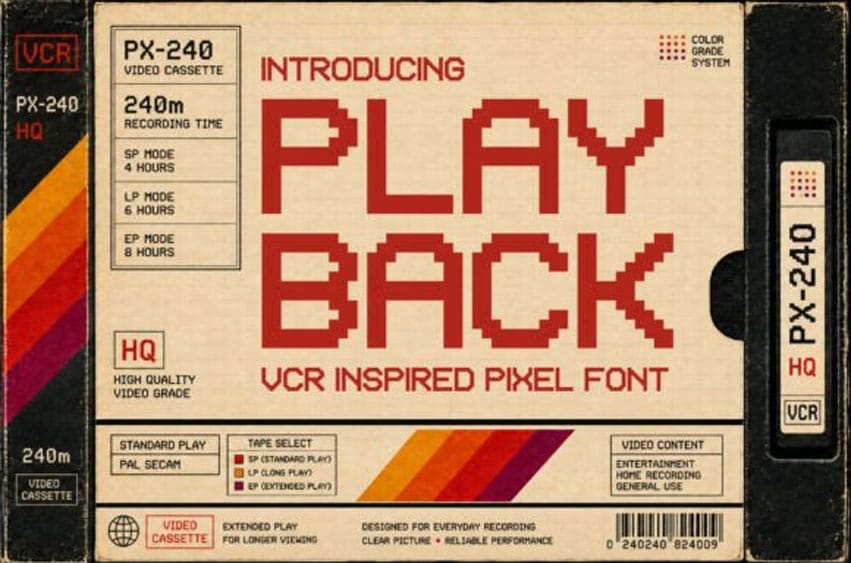
Playback Font Rewind to the glory days of analog tape and VHS video packaging with PLAYBACK! Inspired by vintage VCR cassette sleeves and retro screen displays, this pixelated display font captures the crisp, blocky geometry of classic 80s and 90s technology. It instantly gives your typography an authentic lo-fi tech aesthetic and nostalgic analog feel.
Whether you’re crafting retro synthwave album covers, pixel art video games, VHS-style film posters, 80s/90s party flyers, tech apparel prints, sticker packs, or custom Cricut and Silhouette vinyl craft SVG projects, PLAYBACK hits record on timeless retro style!